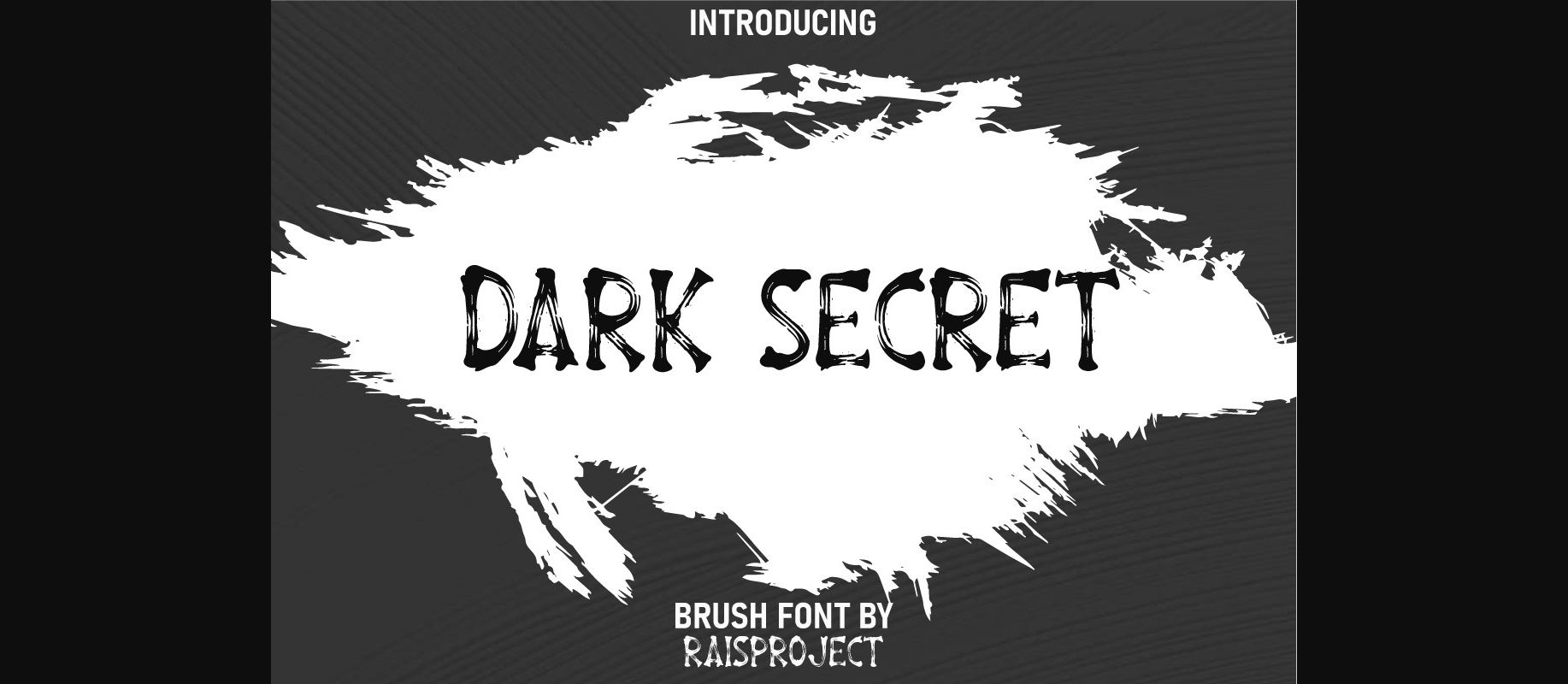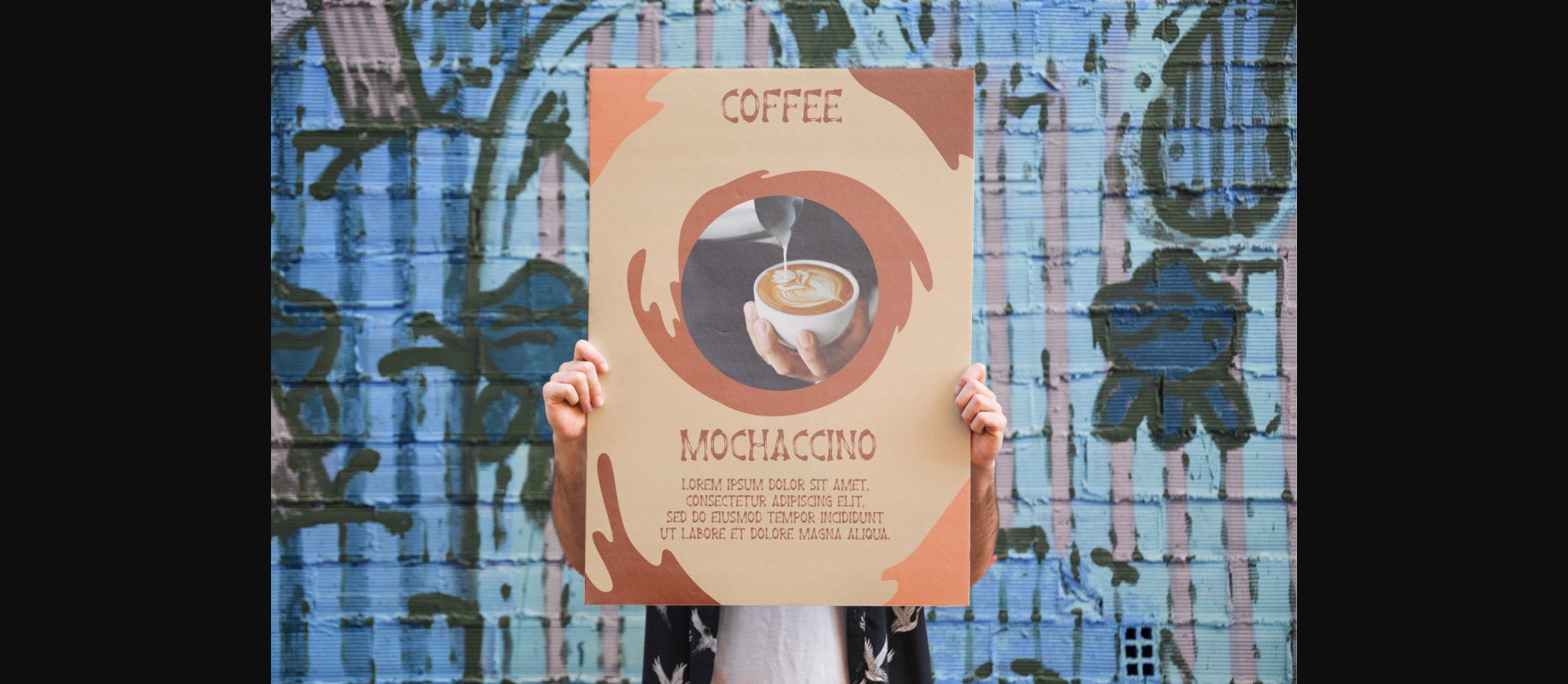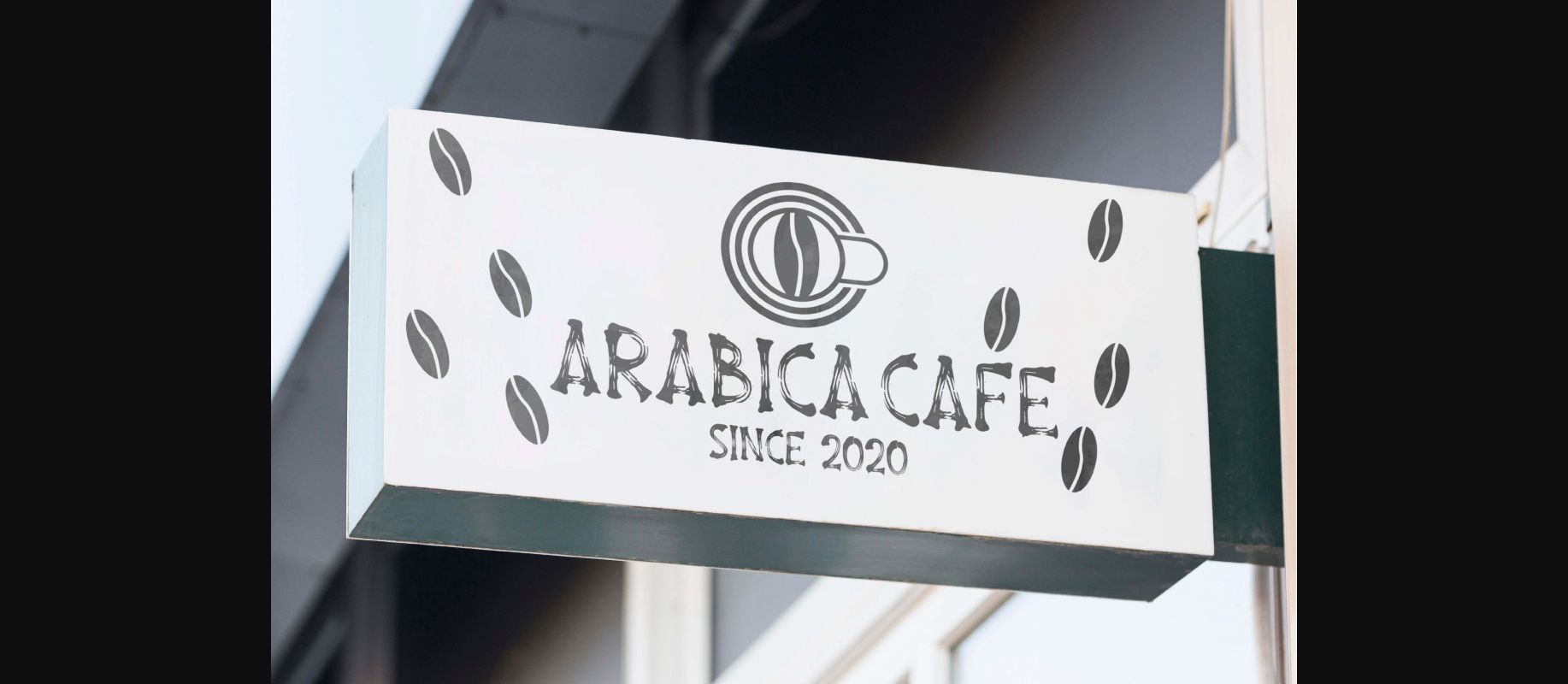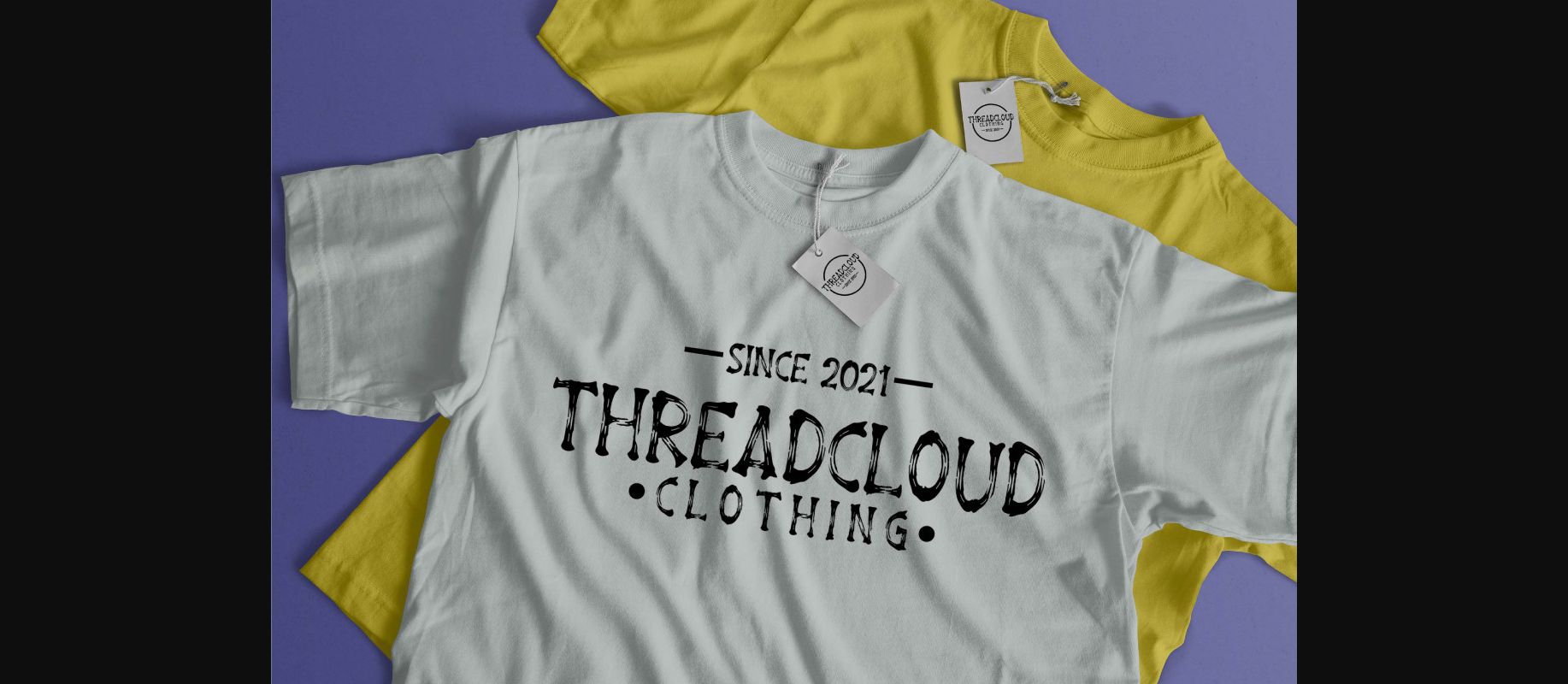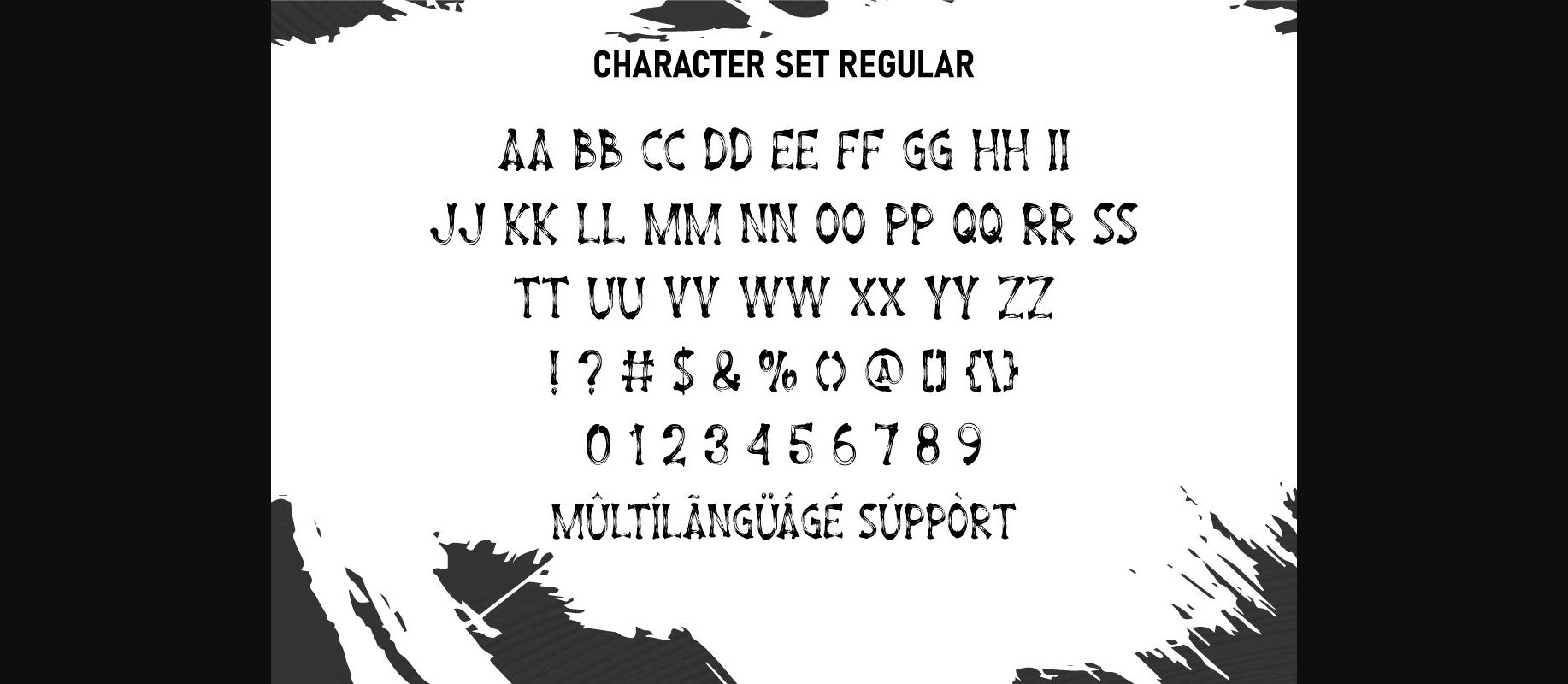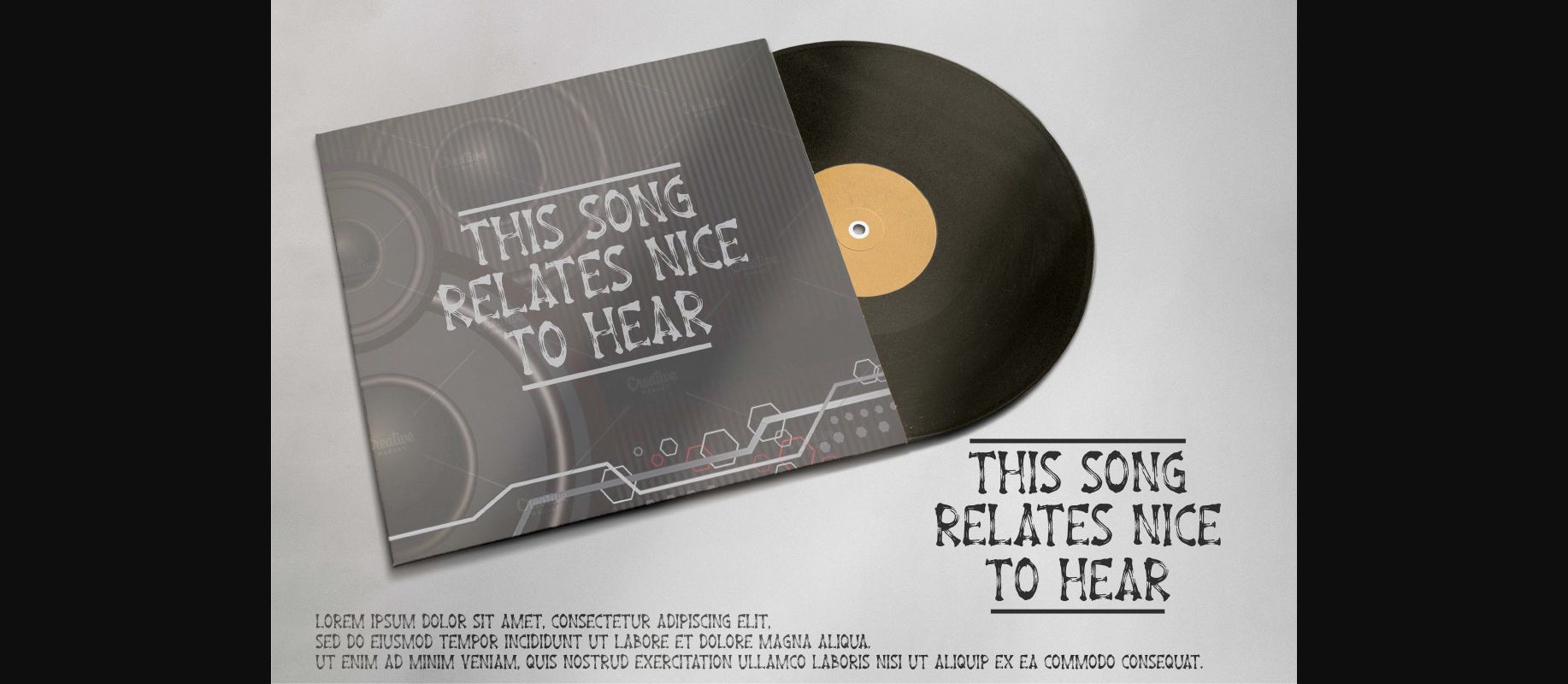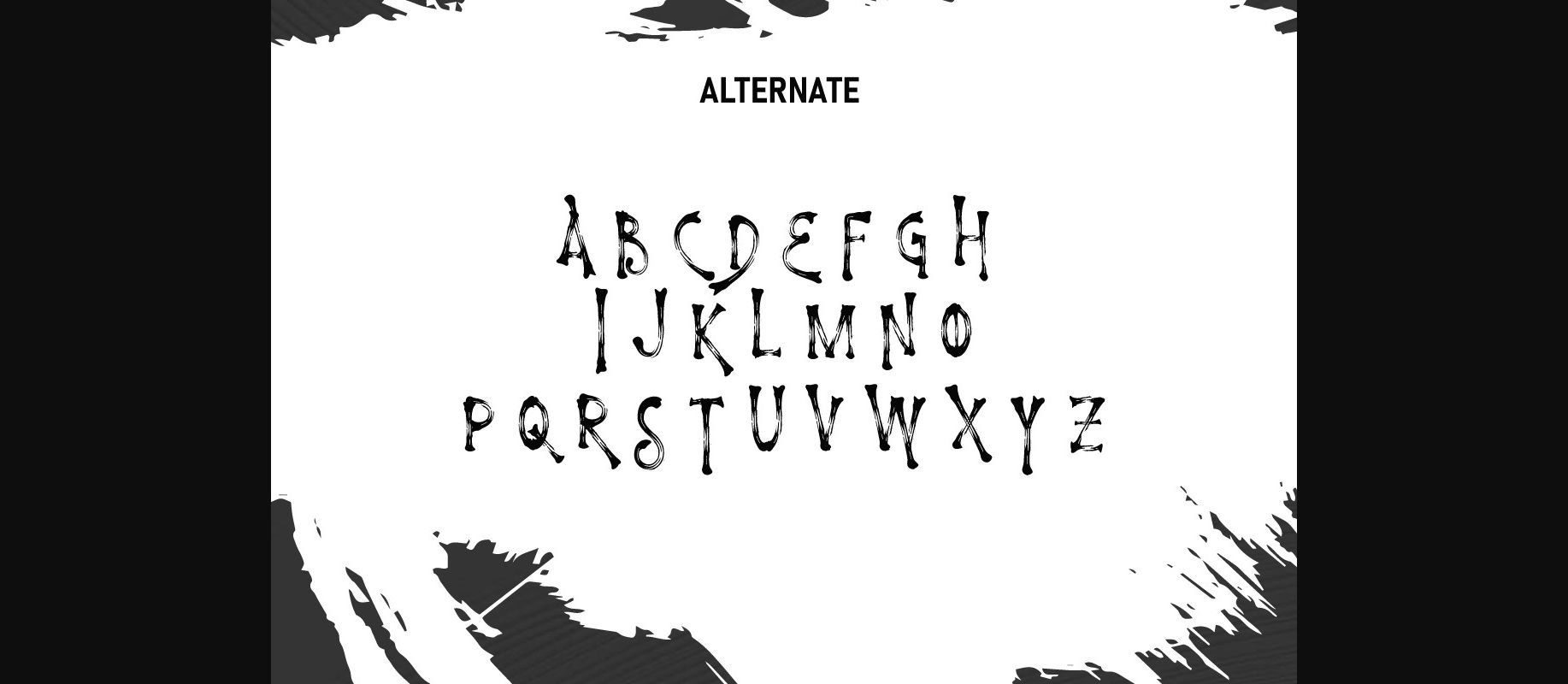
About Dark Secret Font
Dark Secret is a modern and attractive brush font that features thick and thin strokes for a natural, hand-painted look. With its bold brush strokes, this font is perfect for making a statement, and its friendly curves give it a welcoming feel. Its versatile design will make it a great addition to any project.